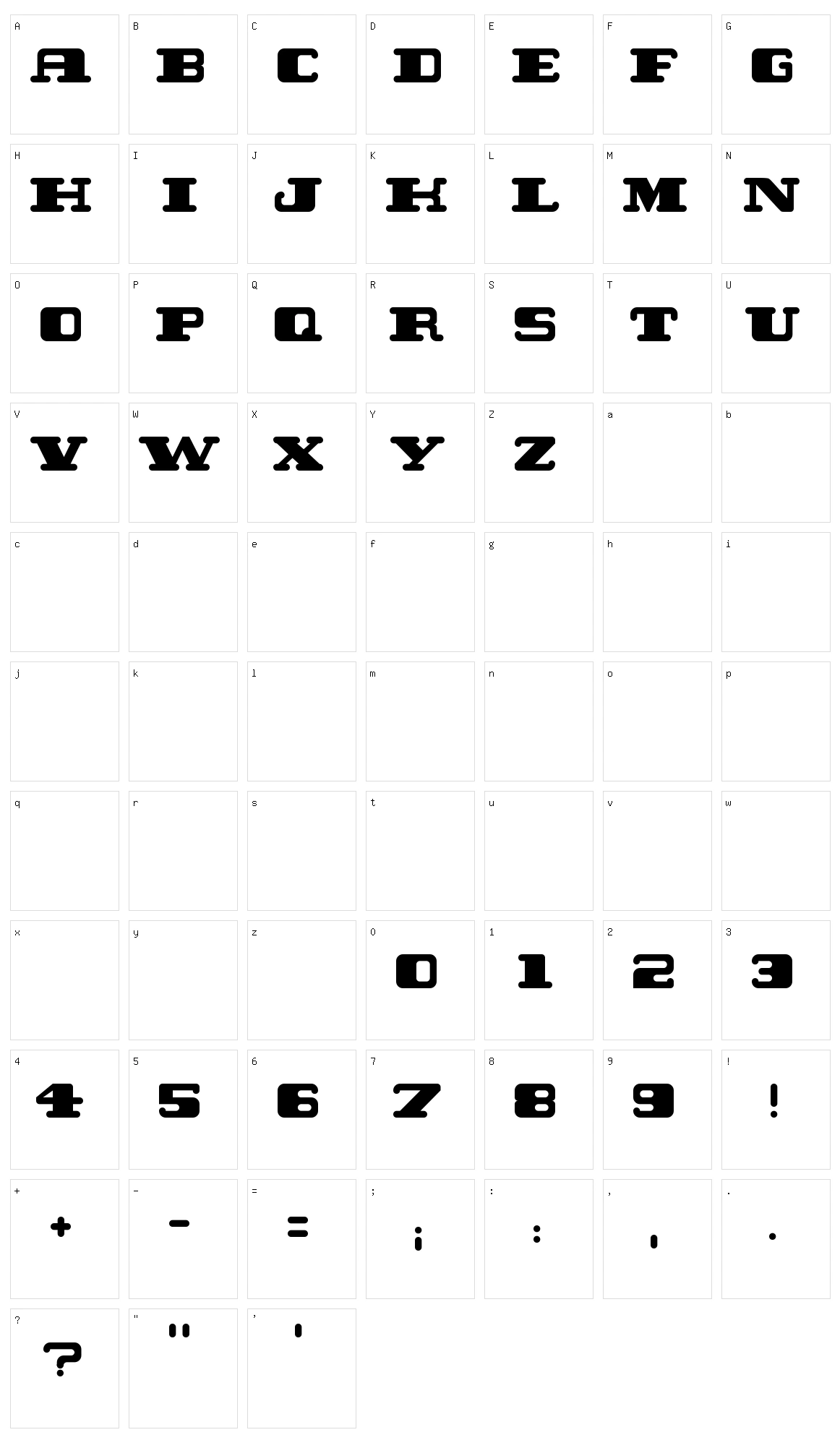
The free font Twent is carefully designed by imagex, showcasing a thoughtful balance of creativity and usability and falls under the Retro font style. When you download the ZIP file, it contains only 4.27 KB of font files, making it lightweight and quick to download. Please review the license details below to understand permitted usage and distribution rights. If license information is not available, we recommend using this font for personal projects only or contacting the author directly for commercial usage permissions.